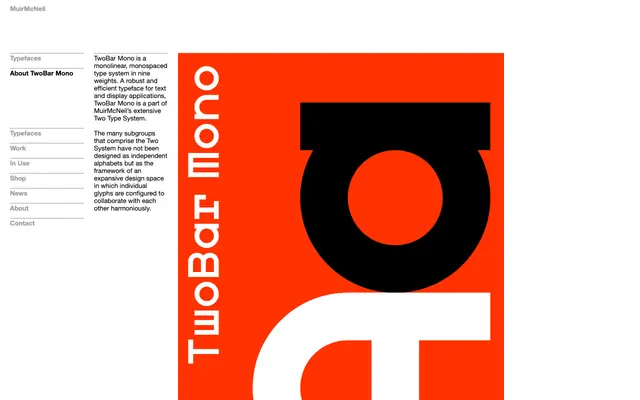
TwoBar Mono
A monolinear, monospaced type system in nine weights, forming one subgroup within MuirMcNeil's broader Two Type System.
Part of MuirMcNeil's expansive Two Type System, TwoBar Mono is built around a consistent monolinear stroke and fixed-width grid across nine weights. Individual glyphs are designed to work in concert with others across the wider system rather than as a standalone alphabet. Suited to both text and display applications where systematic consistency and weight range are priorities.
A monolinear, monospaced type system explicitly positioned as part of MuirMcNeil's Two Type System; the consistent stroke width and systematic grid-based construction place it firmly in the geometric mono category.